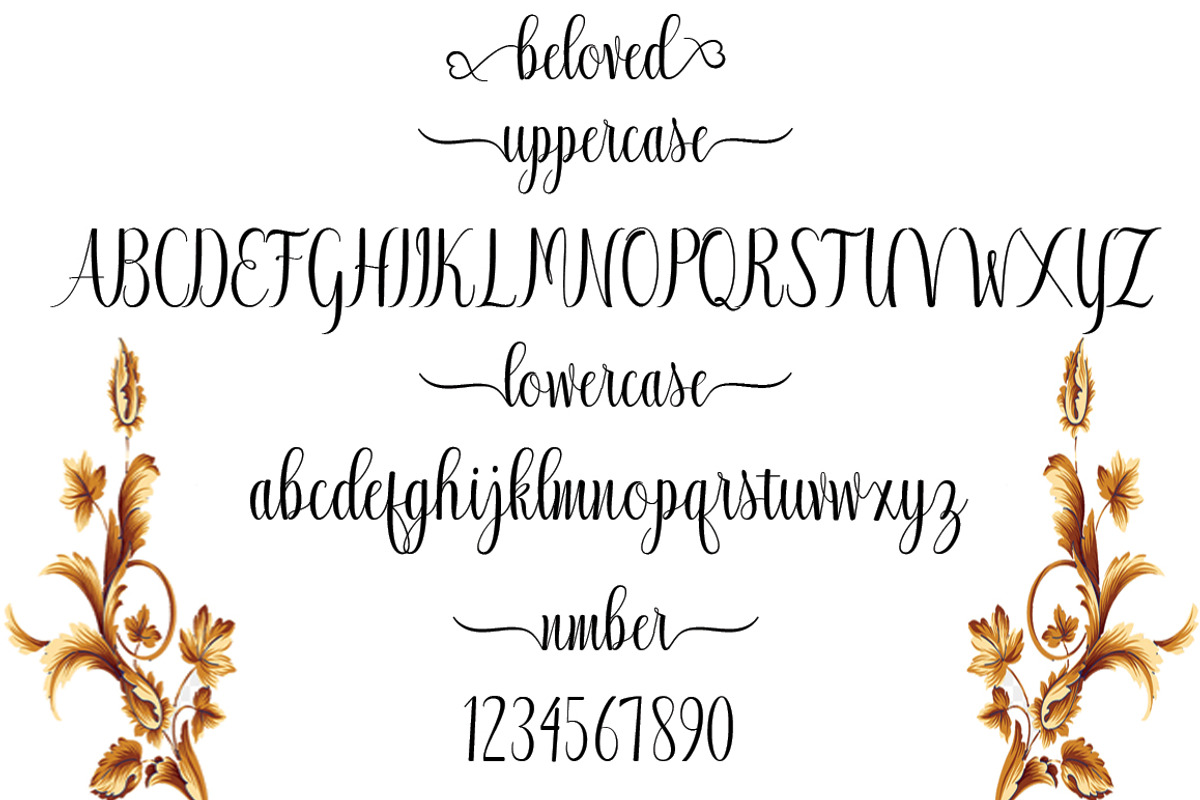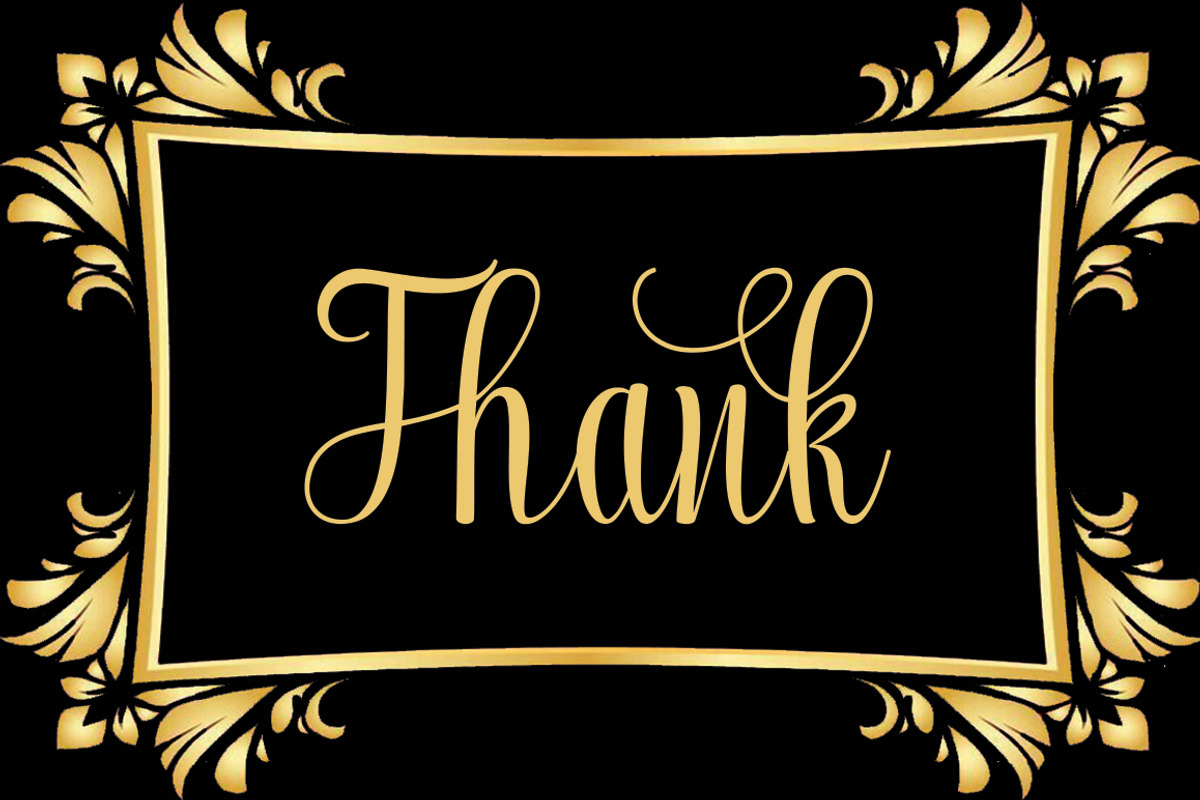
Beloved
Beloved Modern Calligraphy. This font was designed by handwriting, and it has a modern and unique forms of calligraphy, the writing style is very natural. Beloved has a very unique style of calligraphy, it is very suitable for use in the work of modern design. The Features of this fonts is:
- Standart ligatures
Can be used for various purposes.such as headings, logos, wedding invitation, t-shirt, letterhead, lable, news, posters, badges etc. To enable the OpenType Stylistic alternates, you need a program that supports OpenType features such as Adobe Illustrator CS, Adobe Indesign & CorelDraw X6-X7.a font that made the hand by having the character up and down like a dancer. Beloved has a very unique style of calligraphy, it is very suitable for use in the work of modern design.